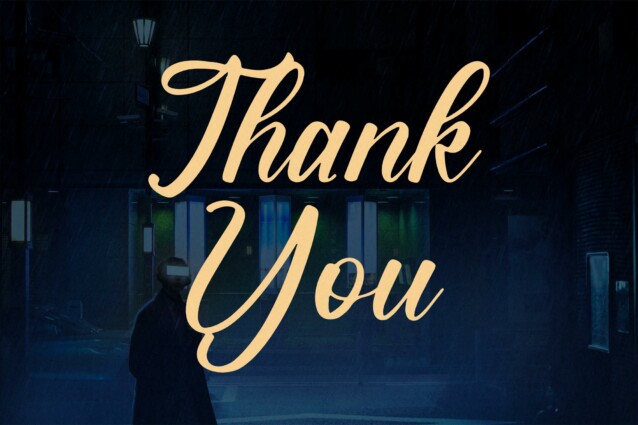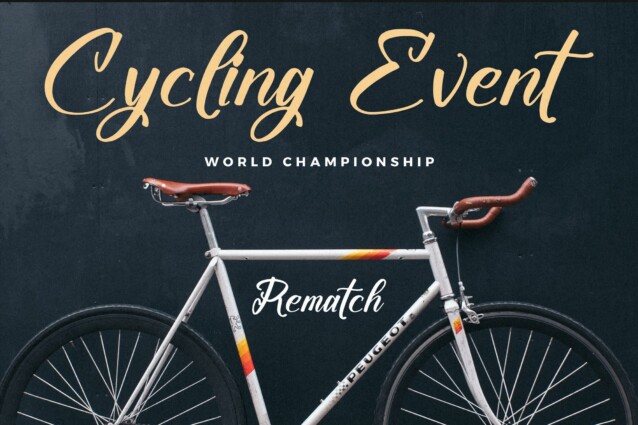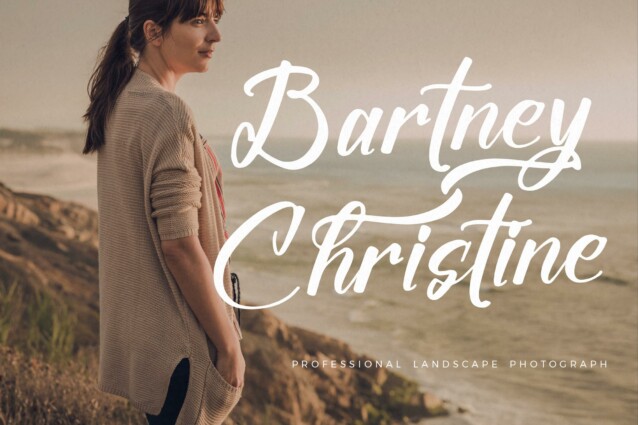
Violendy Qishega Font
Violendy Qishega Font is Modern Handbrush Calligraphy Script Font, suitable for any projects such as: logos, branding projects, homeware designs, product packaging, mugs, quotes, posters, shopping bags, t-shirts, book covers, name card, invitation cards, greeting cards, label, photography, watermark, special events, and all your other lovely projects that need a beautiful script taste.